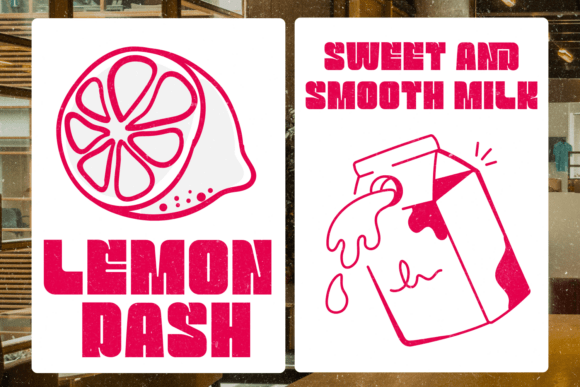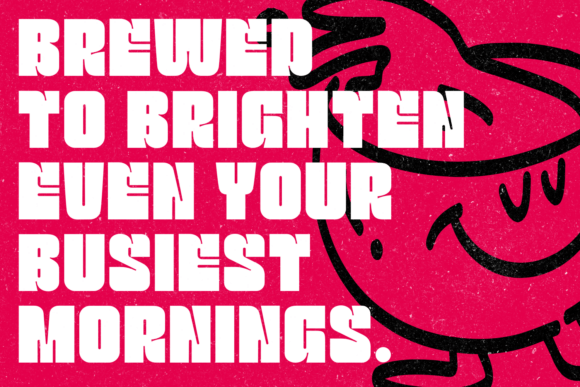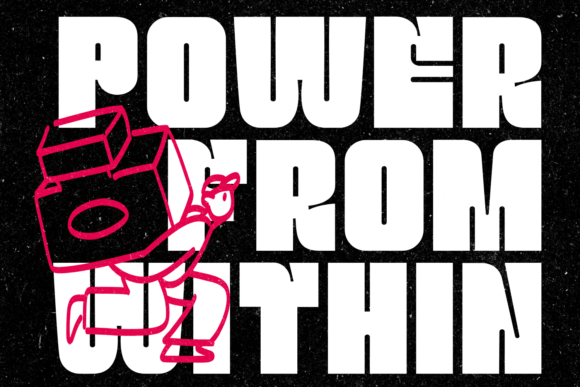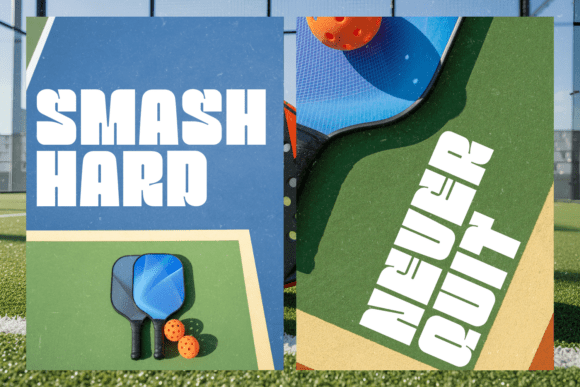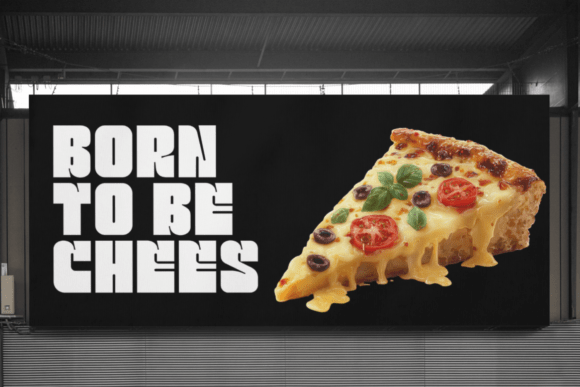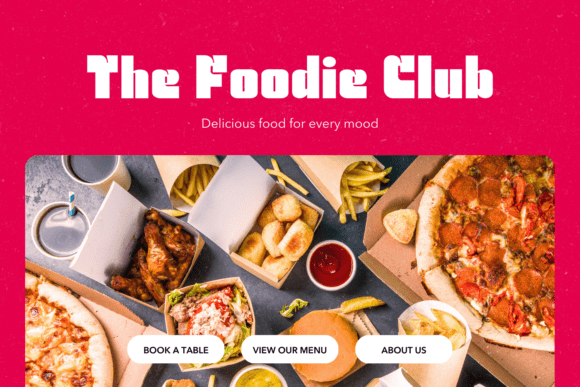
Unleashing the Urban Pulse: Introducing BAGKE MERE FONT
Envision an urban landscape pulsating with a constant, unstoppable heartbeat. From the resonating scrape of skateboards sliding on concrete to the dazzling radiance of a midnight eatery, there lies a unique visual tempo that gives life to the city streets. The city is a living, breathing entity that throbs with energy, and it’s this rhythm that BAGKE MERE FONT embodies. Presenting BAGKE MERE, the rhythm that echoes within this vibrant urban symphony.
A Bold Statement in Pixels
BAGKE MERE is far more than just a typeface—it’s a bold statement etched into pixels. The design embodies the unfiltered vigor of the city, an expression of its dynamic culture. This font is not just a collection of letters; it’s an experience, a feeling, and a vibe that captures the essence of urban life. BAGKE MERE does not merely wish to be seen—it compels recognition.
Architectural Marvel in Typography
The structure of this typeface mirrors the architectural marvel of a towering skyscraper: unyielding, imposing, and undeniably evocative. Just as a skyscraper dominates the city skyline, BAGKE MERE dominates the visual landscape with its strong, confident lines. Each letter is crafted with precision, reflecting the meticulous planning and engineering that goes into building a city. The font’s design is a masterclass in typography, balancing aesthetics with functionality.
Design Elements and Characteristics
BAGKE MERE FONT boasts several distinctive design elements that set it apart from other typefaces:
- Geometric Precision: The font features sharp, geometric lines that evoke the urban landscape’s precision and planning.
- Dynamic Curves: Fluid curves and rounded edges add a touch of dynamism, reflecting the city’s constant movement and evolution.
- High Contrast: BAGKE MERE exhibits high contrast between thick and thin lines, mirroring the juxtaposition of old and new, traditional and modern, in city architecture.
- Legibility: Despite its bold and complex design, the font maintains exceptional legibility, making it suitable for a wide range of applications.
Applications and Use Cases
BAGKE MERE FONT is designed to thrive in environments where impact and legibility are paramount. Here are some ideal use cases:
- Headings and Titles: Use BAGKE MERE to create bold, eye-catching headings for magazines, newspapers, and digital publications.
- Branding and Logos: The font’s unique character makes it perfect for logos and brand identities that need to stand out in a crowded market.
- Advertising and Marketing: BAGKE MERE’s commanding presence makes it an excellent choice for billboards, posters, and digital ads.
- Packaging and Product Design: Add a touch of urban flair to your product packaging with this versatile and attention-grabbing font.
Crafting with BAGKE MERE
For designers and crafters, BAGKE MERE FONT offers a wealth of creative possibilities. Here are some tips for working with this dynamic typeface:
- Experiment with Colors: BAGKE MERE’s bold design pairs well with vibrant colors, adding an extra layer of visual impact to your projects.
- Mix and Match: Combine BAGKE MERE with other fonts to create striking contrasts and add depth to your designs.
- Play with Scale: The font’s geometric precision and dynamic curves hold up well at various sizes, from large headlines to smaller body text.
BAGKE MERE FONT is more than just a typeface; it’s a statement, an experience, and a celebration of urban life. Its bold design, geometric precision, and dynamic curves make it an excellent choice for designers and crafters looking to add a touch of the city to their projects. Whether you’re working on branding, advertising, or packaging, BAGKE MERE is sure to compel recognition and leave a lasting impression.